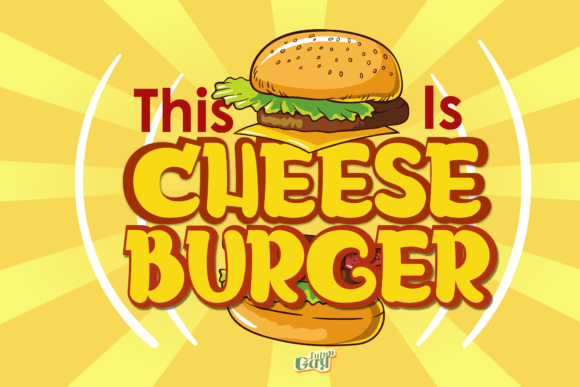
Cheeseburger Font
Font Name : Cheeseburger Font
Author : Nerdstudio
Get ready to sink your teeth into Cheeseburger Font, a delectable display typeface that's sure to satisfy your typographic cravings! Crafted by the culinary geniuses at Nerdstudio, Cheeseburger Font is a quirky, irresistible treat that will add a touch of whimsy to any design.
Indulge in the delectable charm of Cheeseburger Font, where each character is a juicy morsel of visual delight. Its playful curves and cheerful demeanor will make your designs sizzle with personality. Perfect for branding, packaging, and any project that needs a dash of lighthearted fun, Cheeseburger Font is the secret ingredient you've been craving.
Why settle for ordinary when you can savor the extraordinary? Cheeseburger Font is not just another font; it's a taste sensation that will tantalize your creative palate. Its charming appeal will make your designs the talk of the town, leaving a lasting impression that's as sweet as a bite of your favorite burger.
Dive into the world of Cheeseburger Font today and experience the delectable difference it can make in your designs. Let its playful spirit ignite your imagination and create typographic masterpieces that are sure to leave a lasting impression. Don't wait another moment to add Cheeseburger Font to your design arsenal and let the typographic party begin!